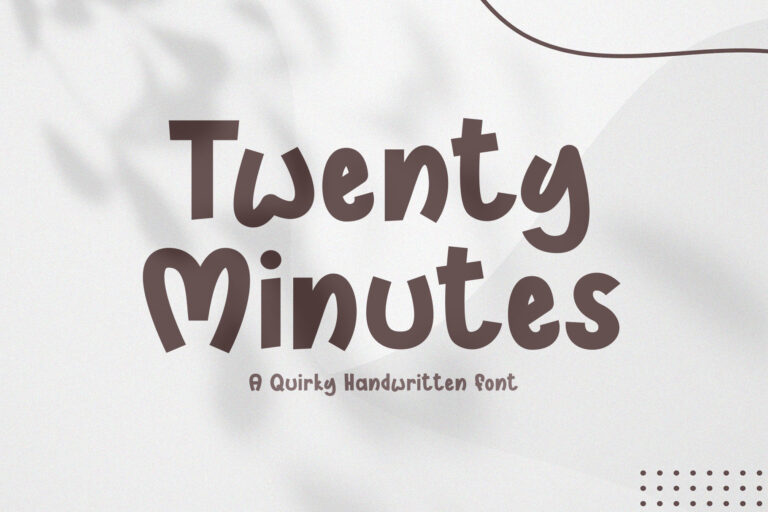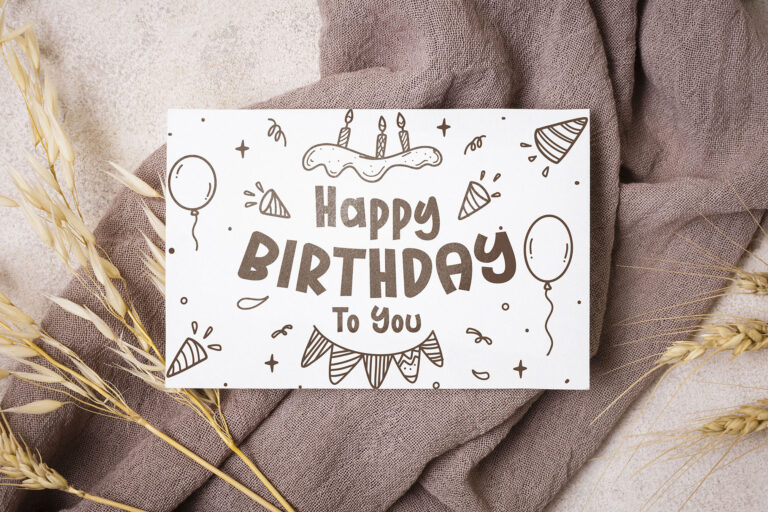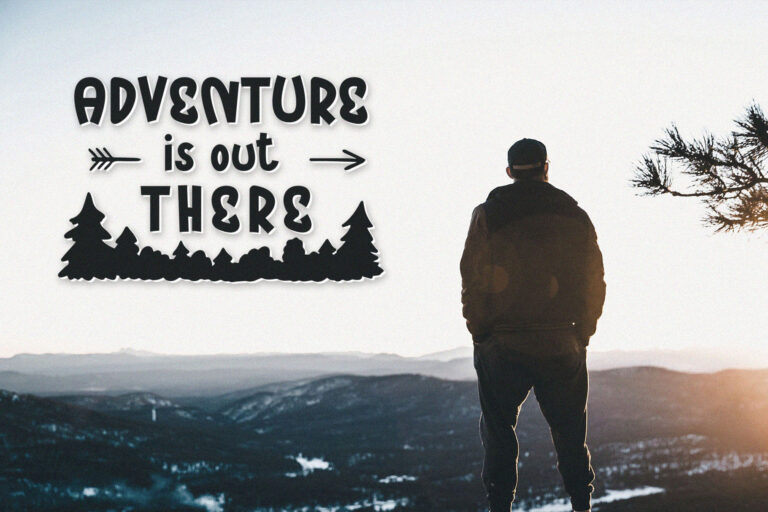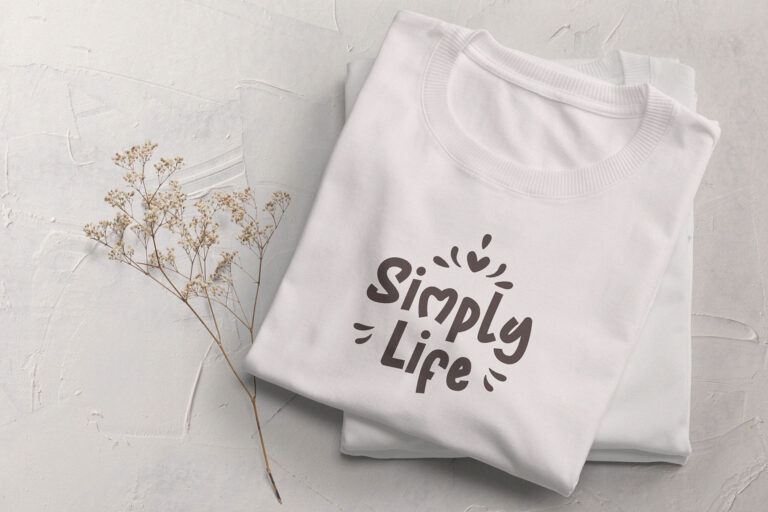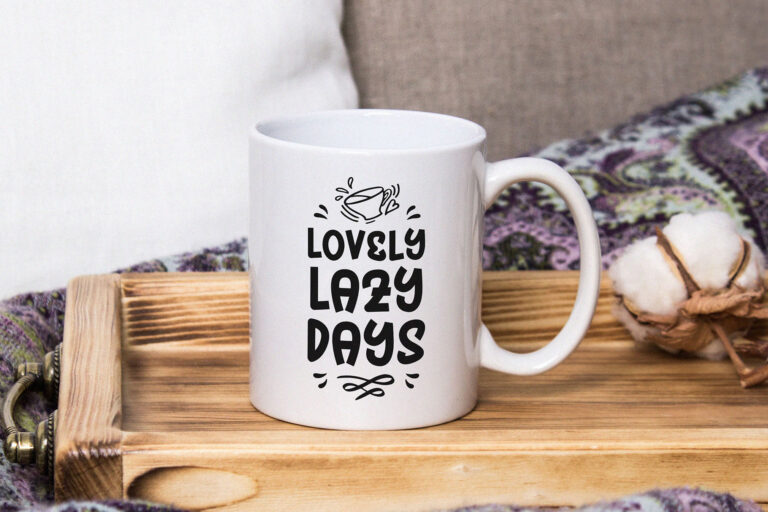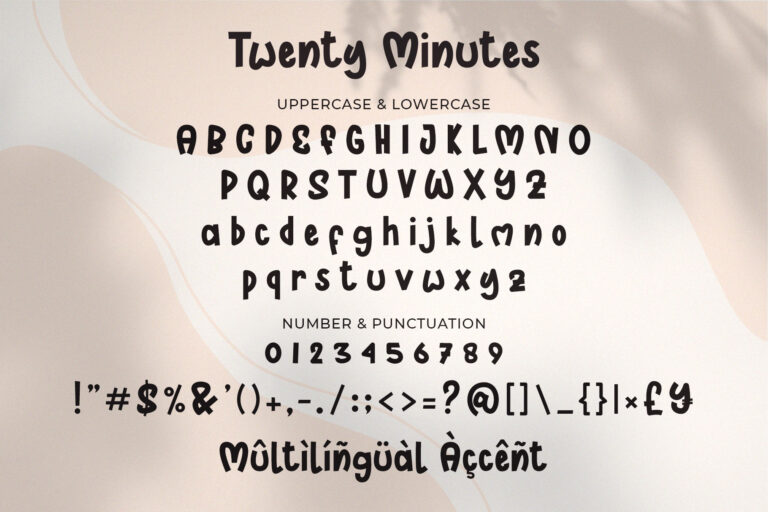
Twenty Minutes – A Handwritten Font
Twenty Minutes is a cute, funny, sweet handwritten font. Clean and soft, this font is the perfect fit for all of your crafty DIY projects, cricut, logos, branding, social media, etc.